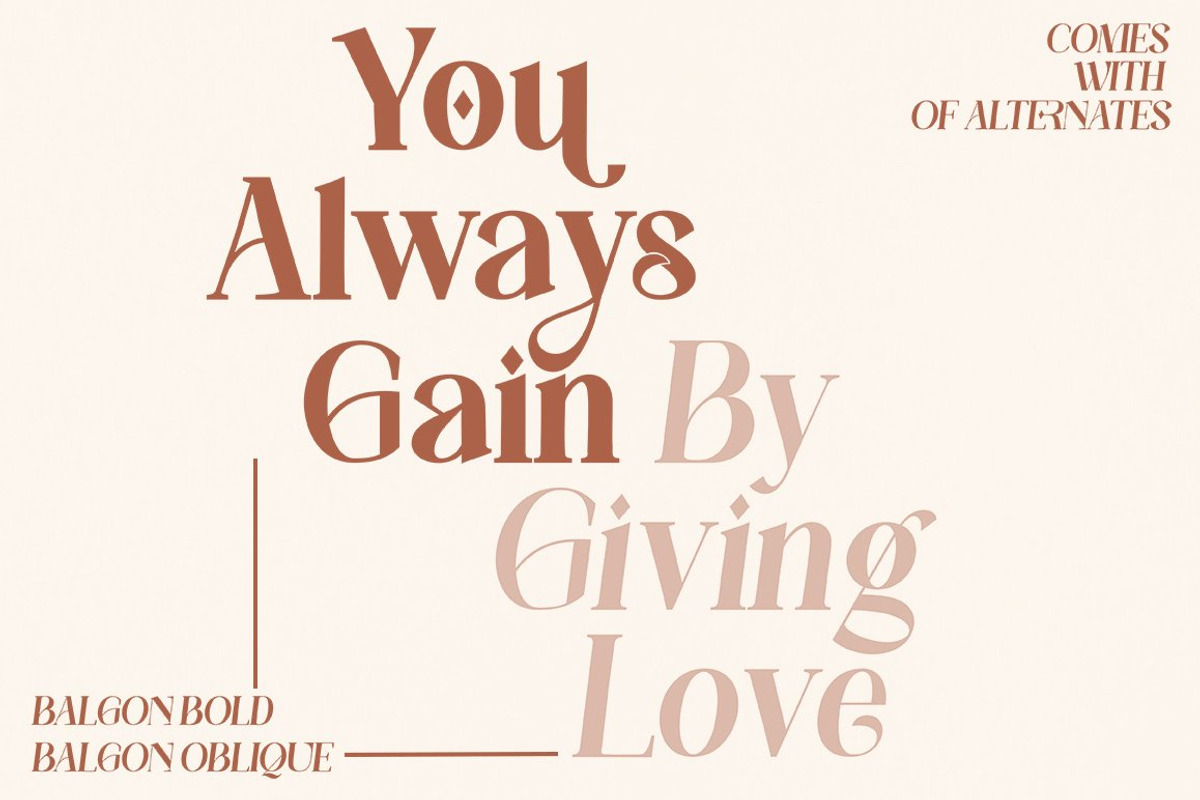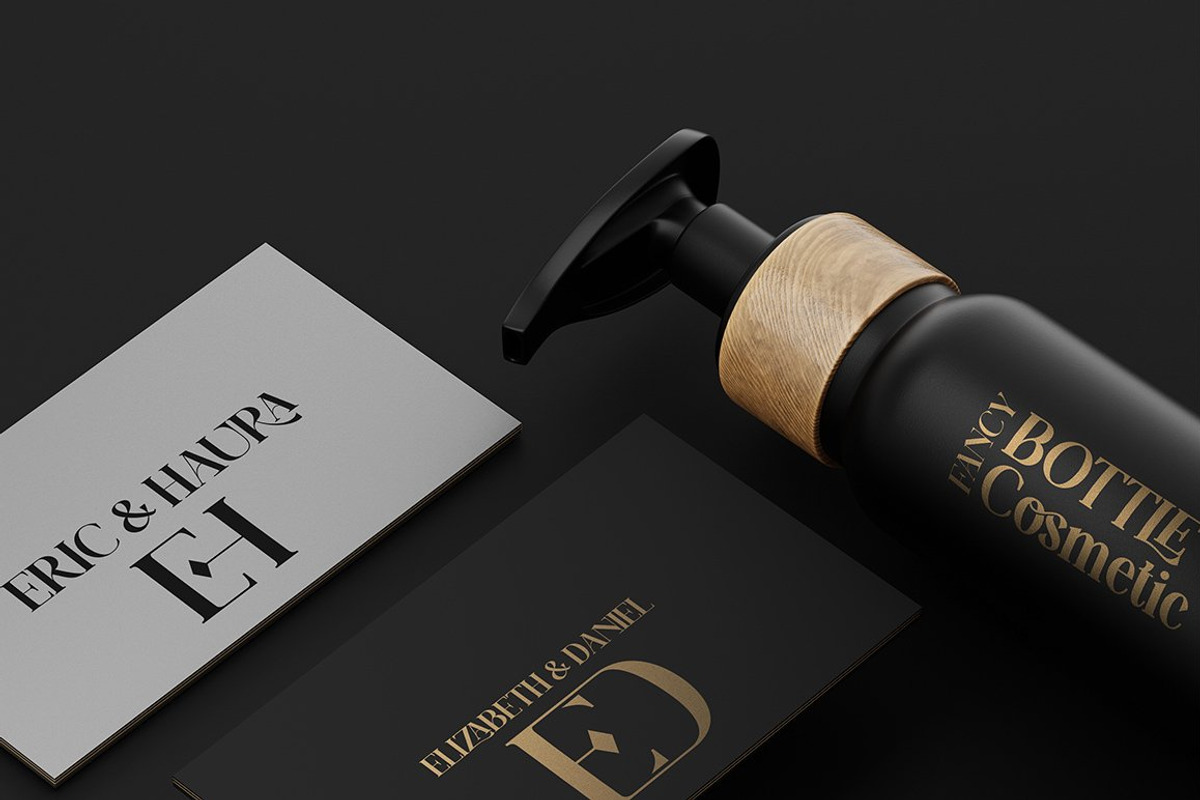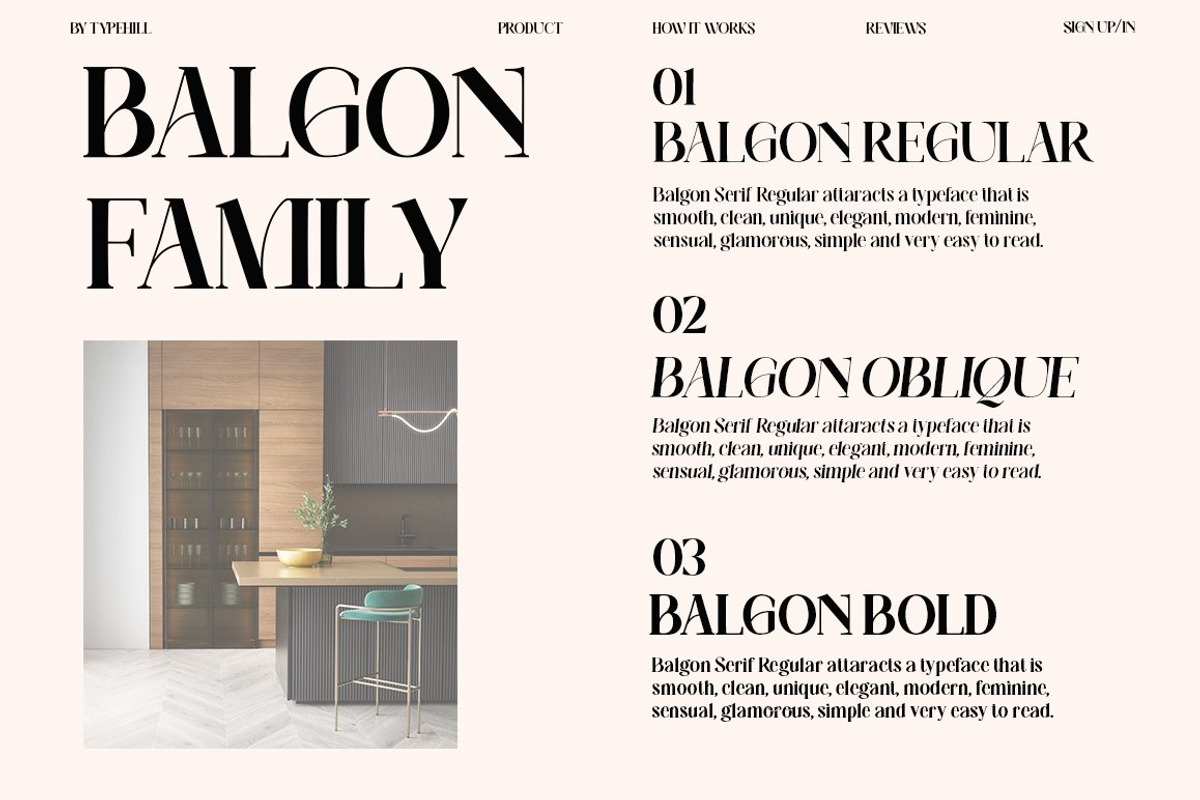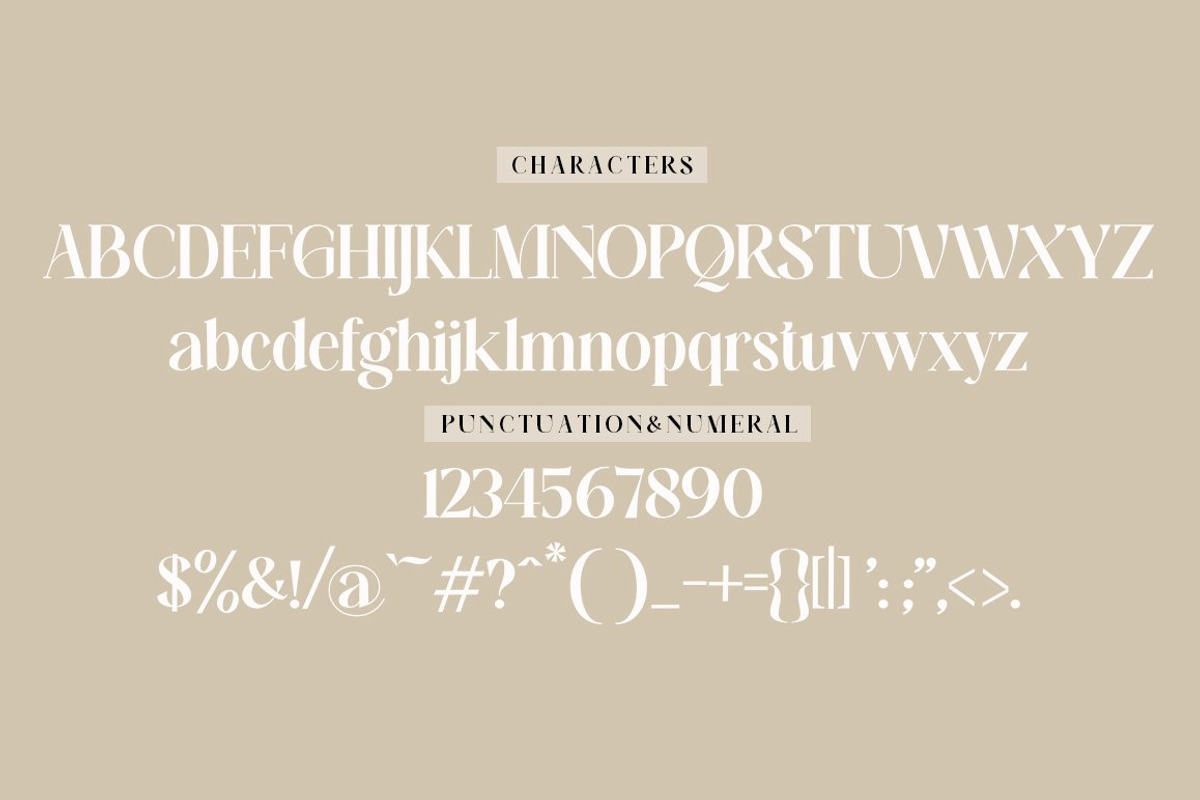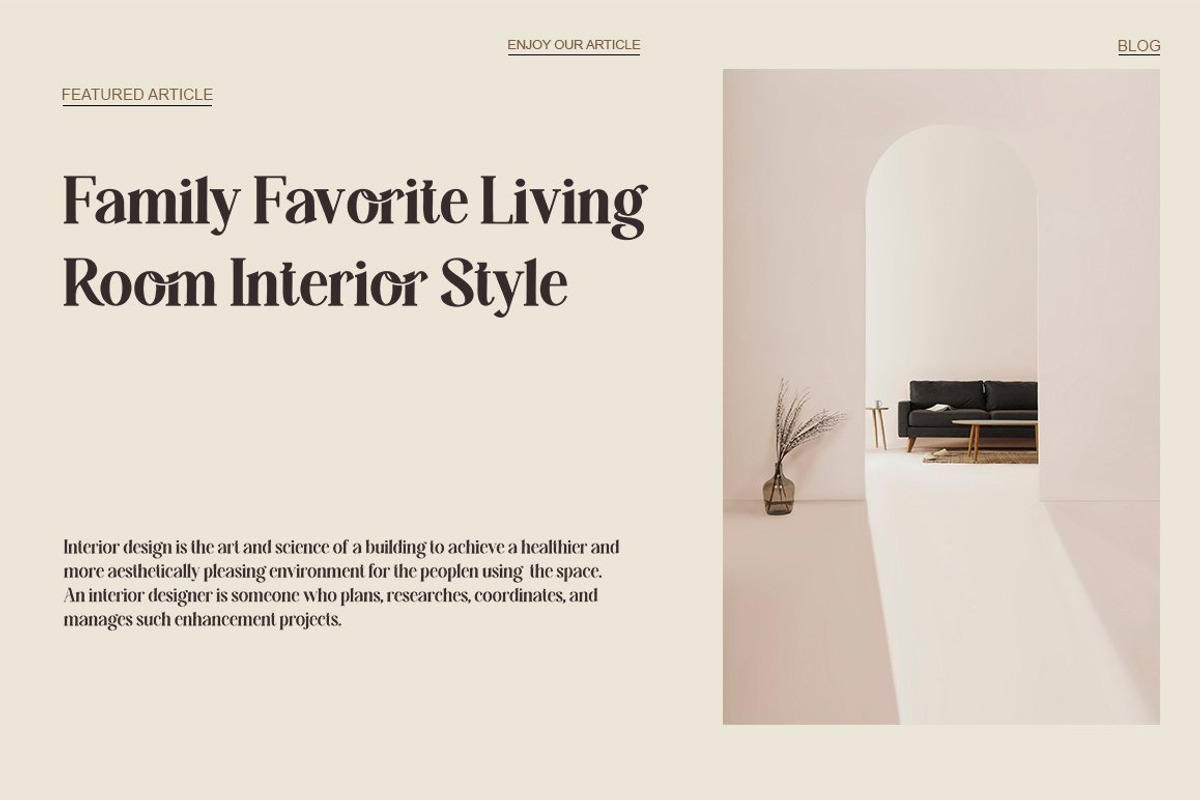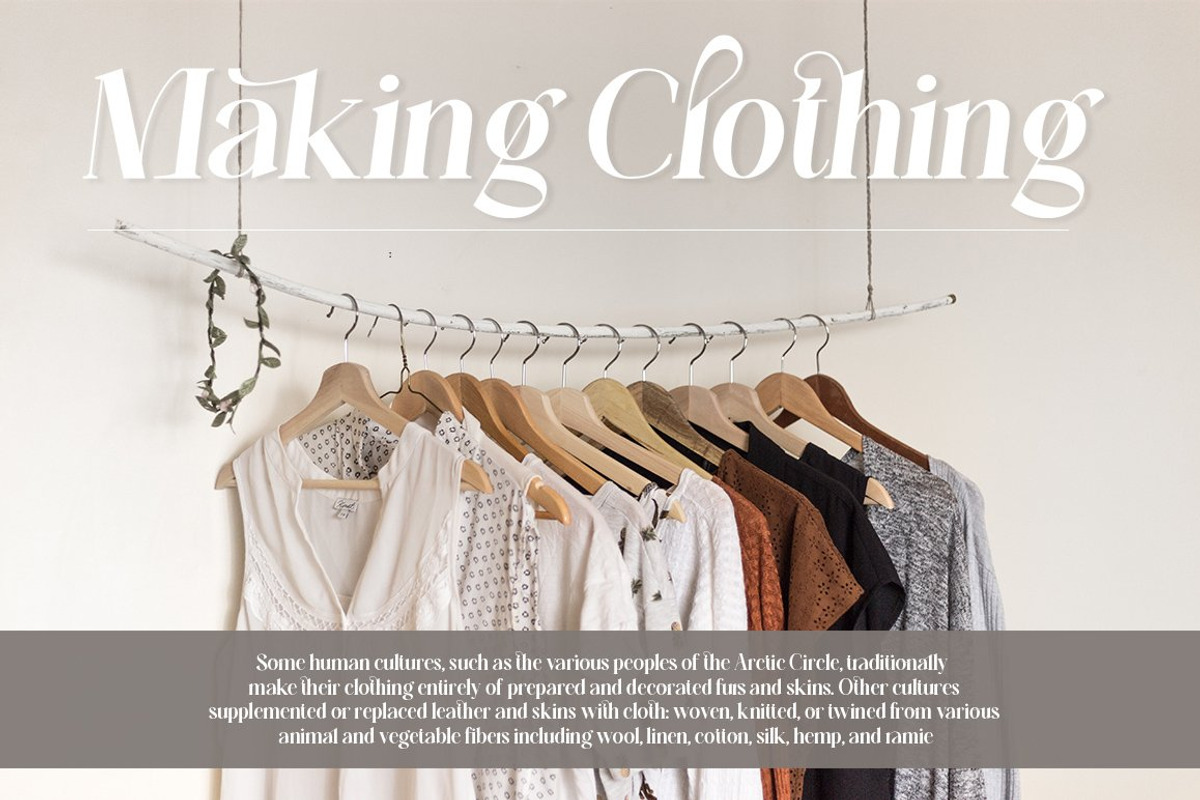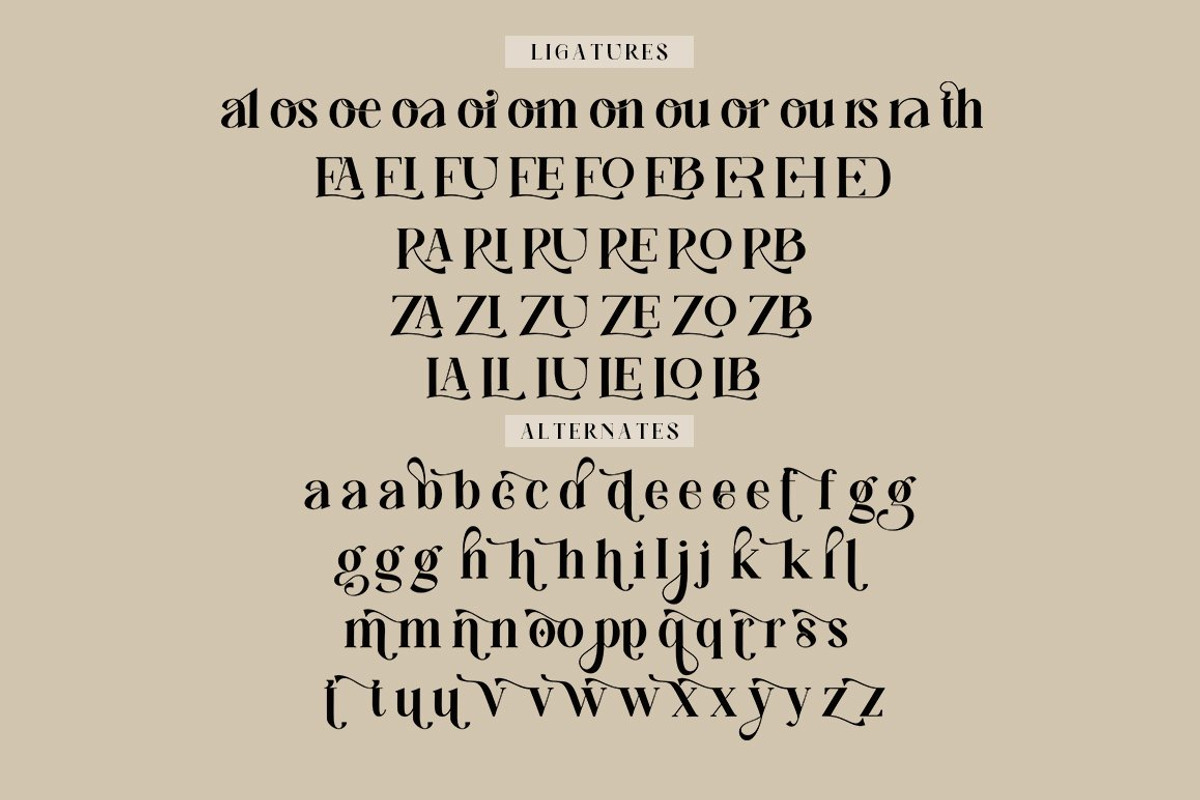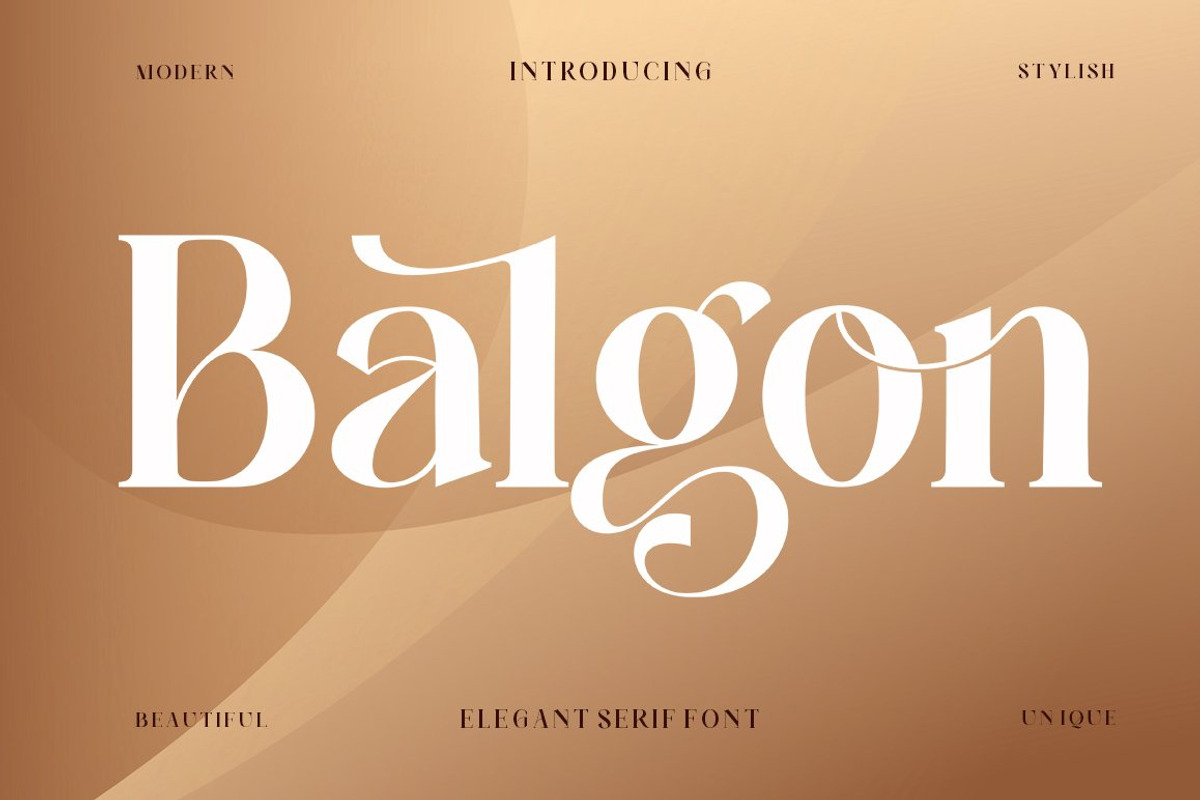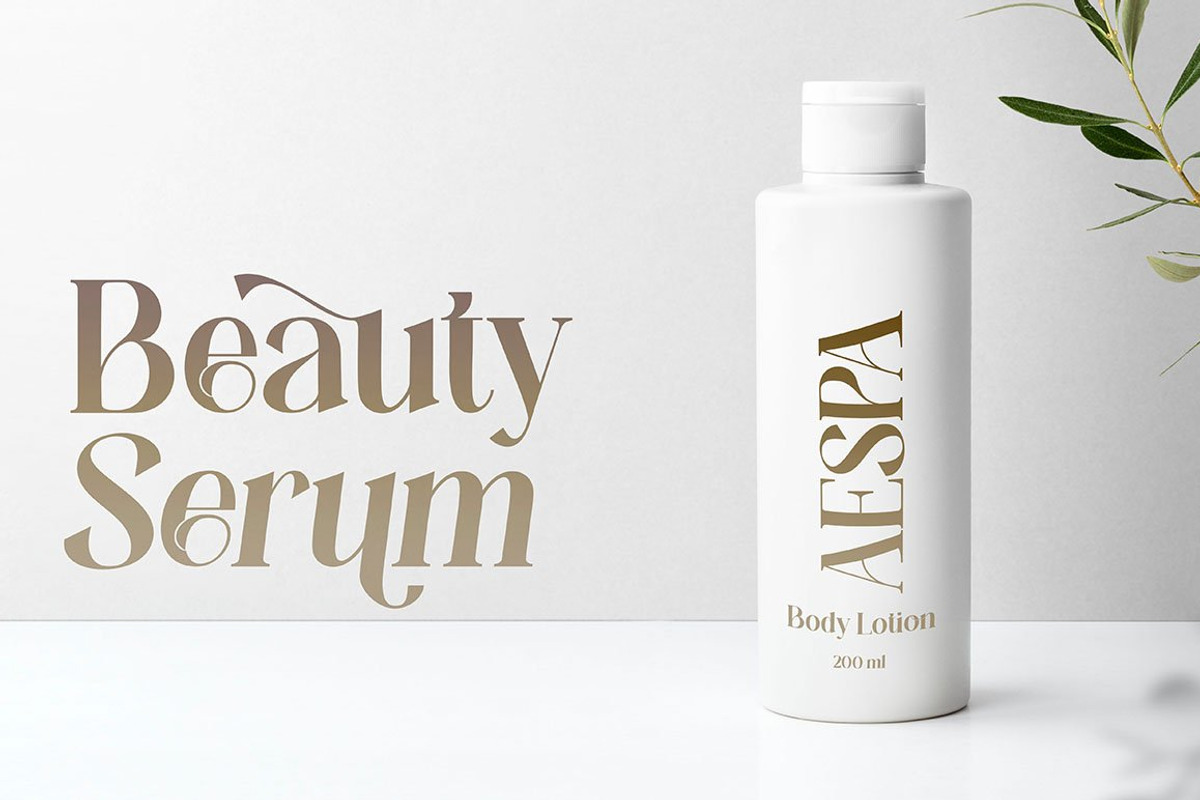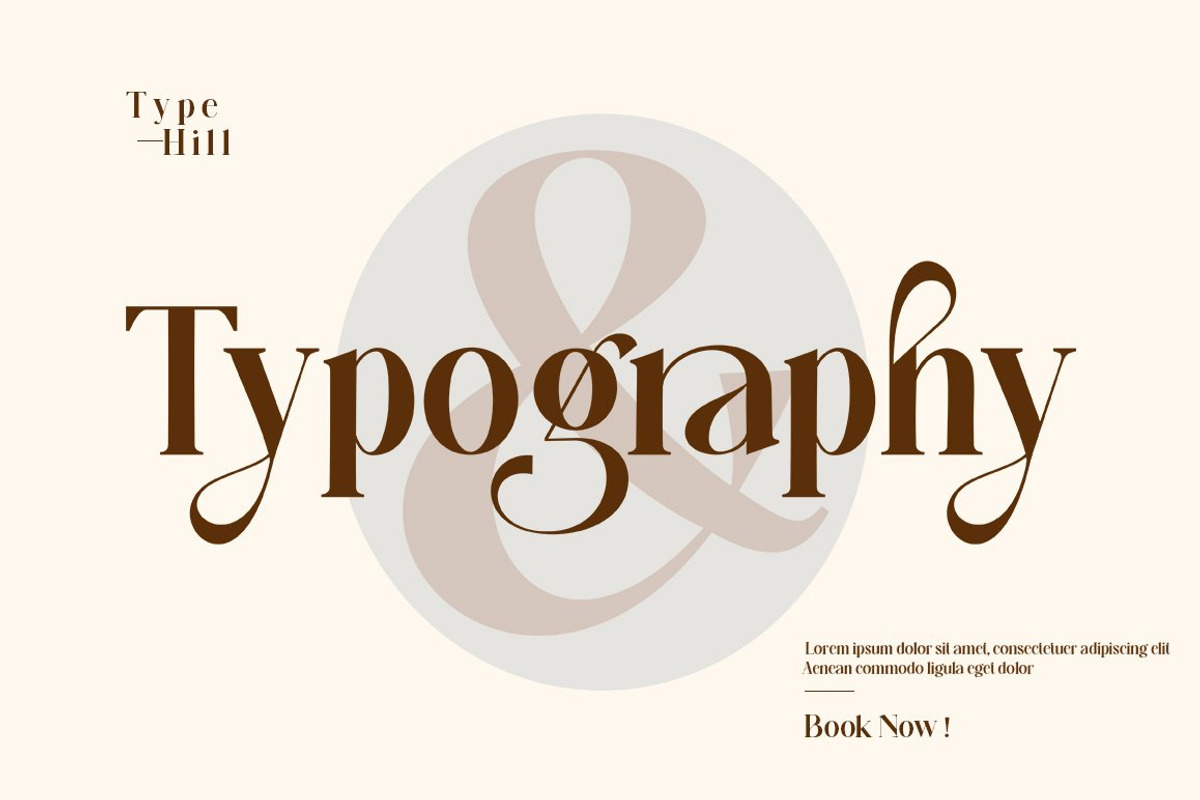
Balgon Serif
Balgon Serif attracts such a subtle, clean, feminine, sensual, glamorous, simple and very readable typeface. The classic style is perfect to apply in various formal forms such as invitations, labels, menus, Logos, fashion, make up, stationery, letterpress, romantic novels, magazines, books, greeting / wedding cards, packaging, labels
Balgon Serif also features a strong neoclassical serif typeface with high contrast, cool, stylish and unique look with alternative fonts, Ligatures, and multilingual support